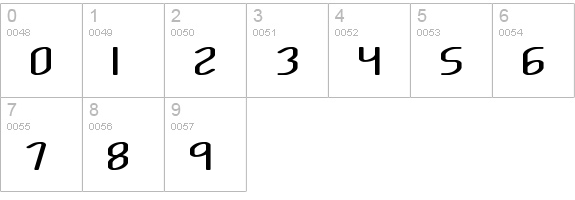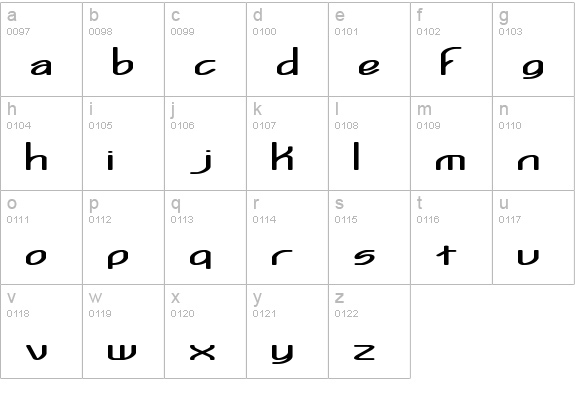
Kurvature BRK Font Details
Kurvature BRK font is a modern and stylish typeface that exudes sophistication and elegance. Its unique curvature and bold design make it perfect for adding a touch of personality to any project. Whether you're designing a logo, creating branding materials, or crafting eye-catching headlines, Kurvature BRK font will make your text stand out. The best part? This stunning font is available for free download at FontsMarket.com. So you can easily access this versatile typeface and elevate your designs without breaking the bank. Don't miss out on the opportunity to enhance your projects with the sleek and contemporary Kurvature BRK font. Download it now and let your creativity shine!